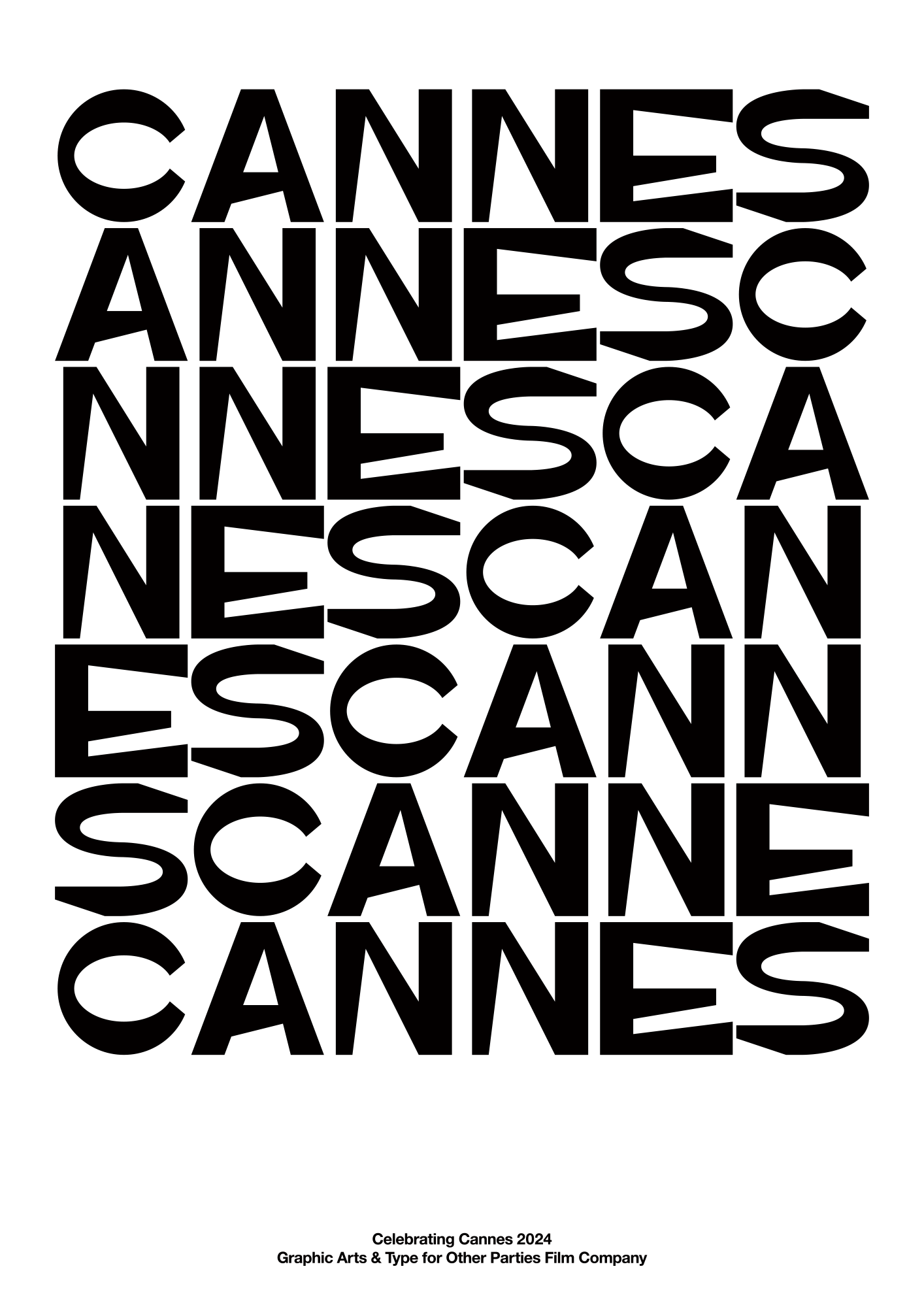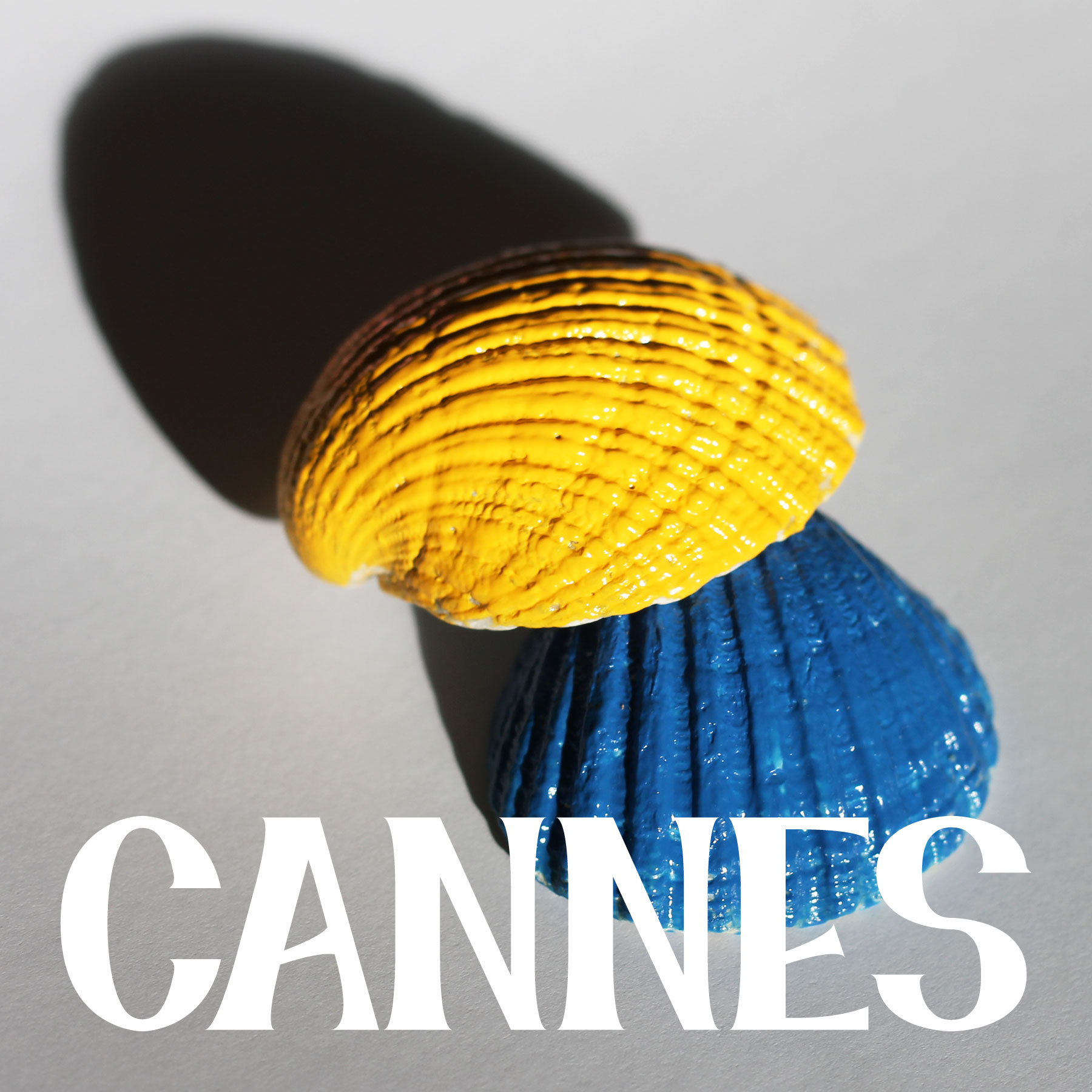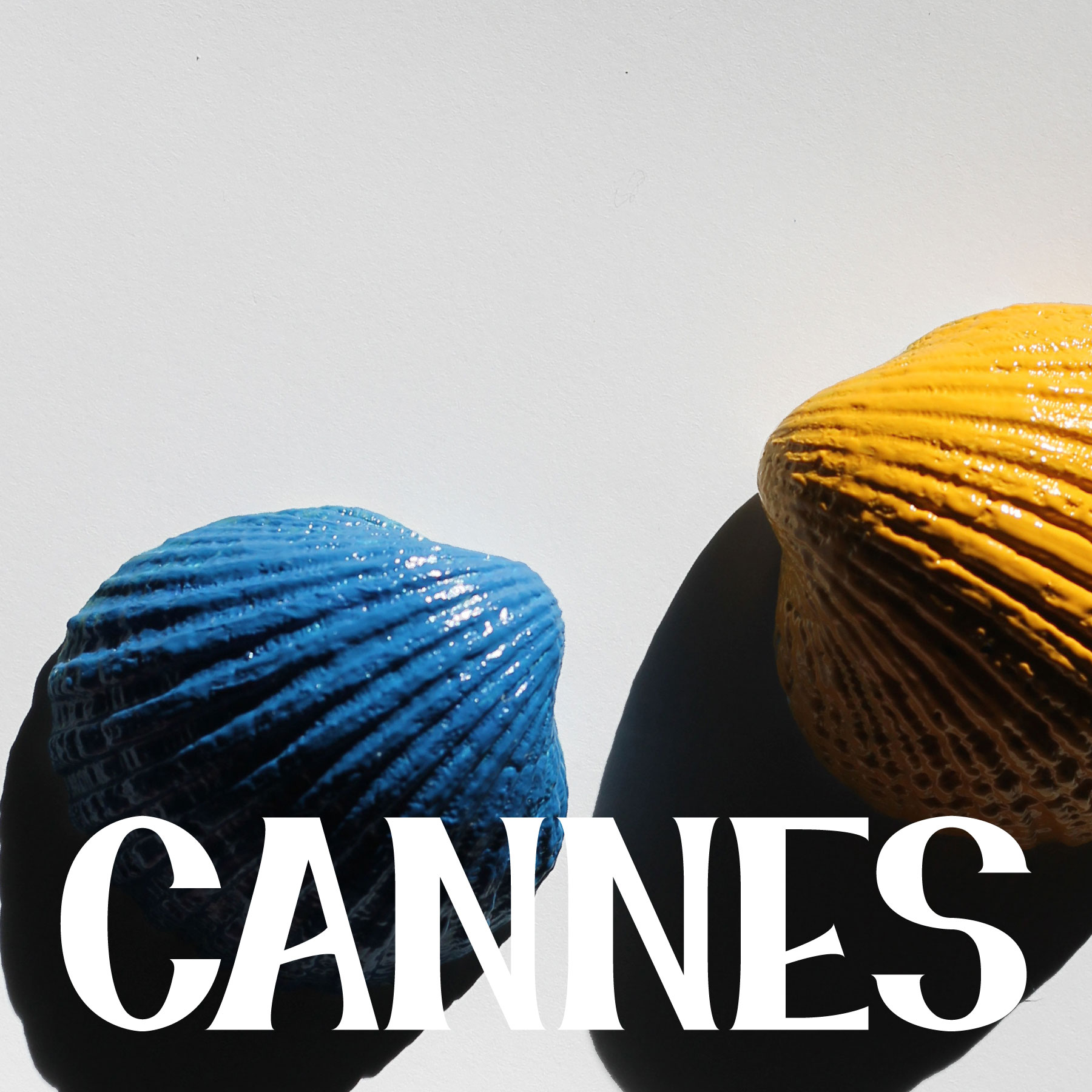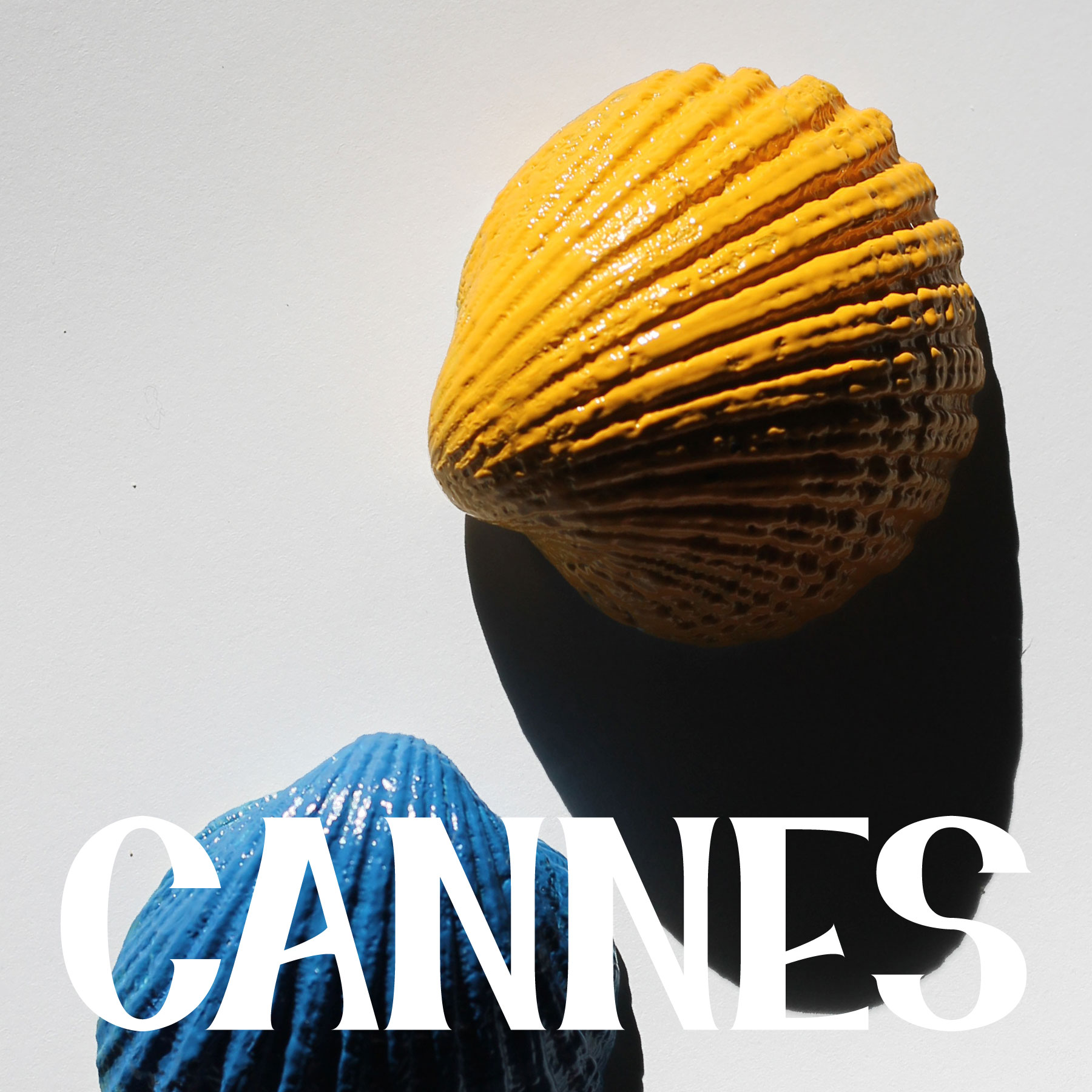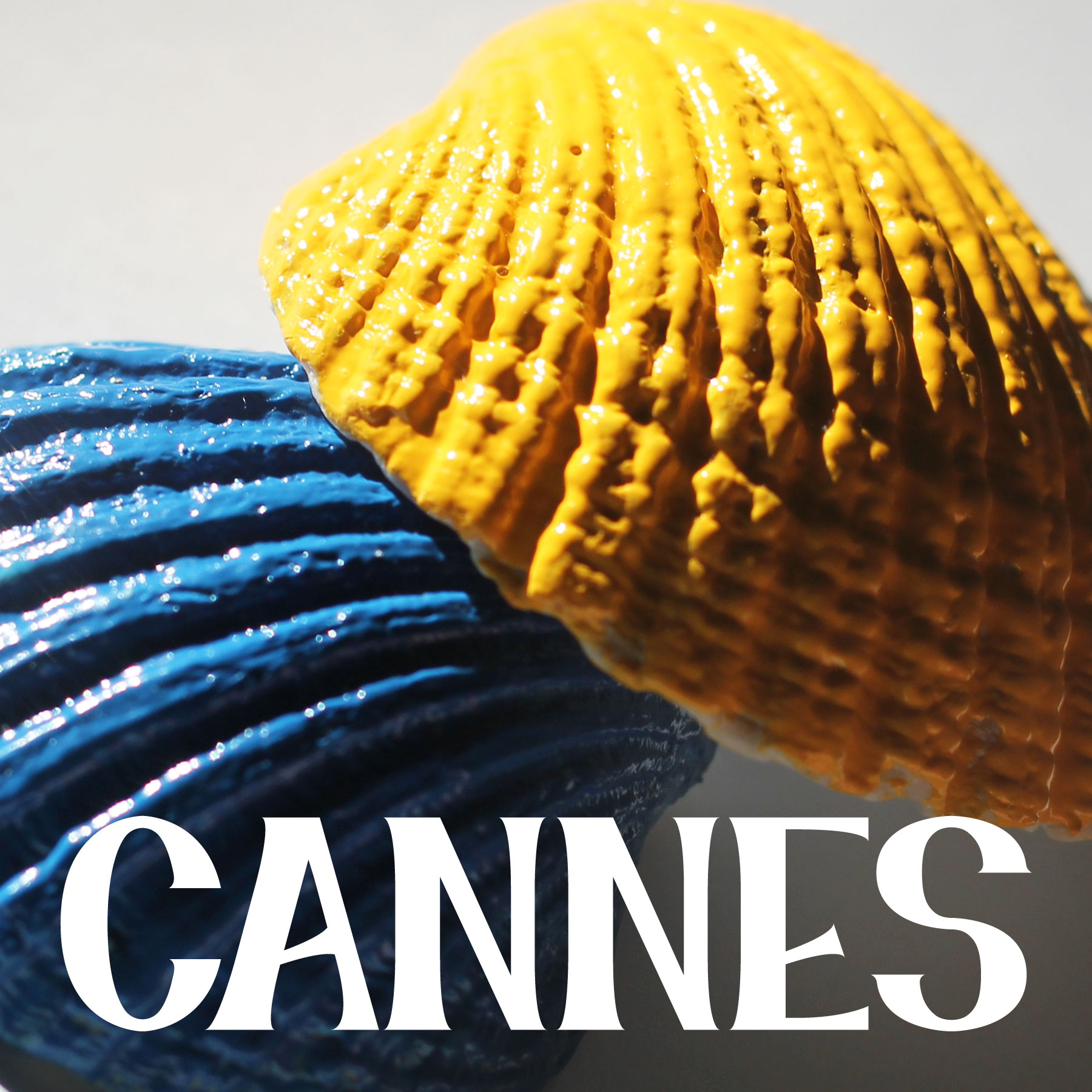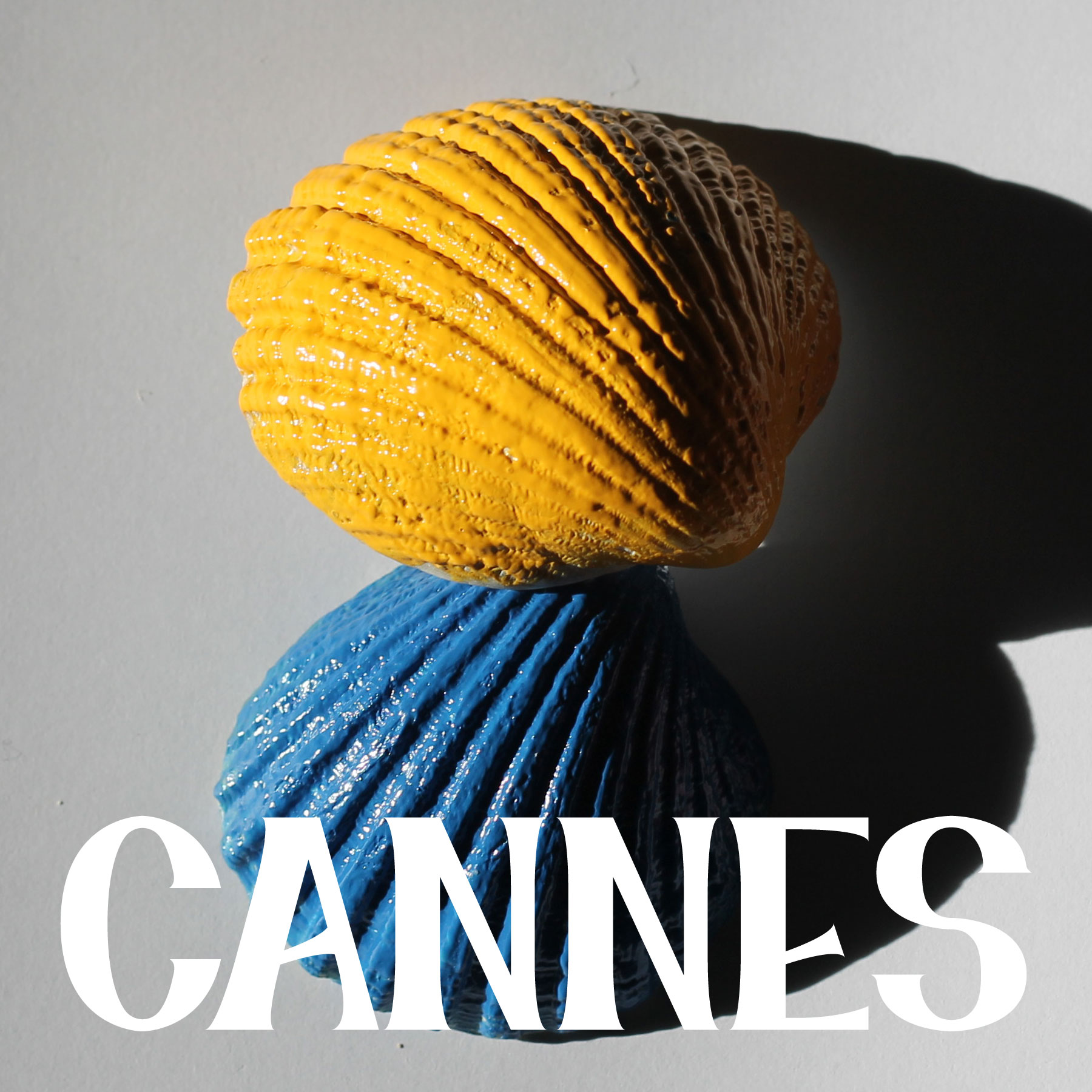
Celebrating Cannes
To celebrate the opening of Cannes Film Festival a selection of different creative artworks from the last few years - two for Other Parties and one for GA&T.
2021
Celebrating Cannes beach poster for Other Parties giveaway.
2022
A sunny sea shell shoot with bespoke typography to promote GA&T at Cannes. Shells painted in Bleu Majorelle by YSL and Giallo Napoli by Chanel.
2024
Celebrating Cannes black and white optical art poster for Other Parties.